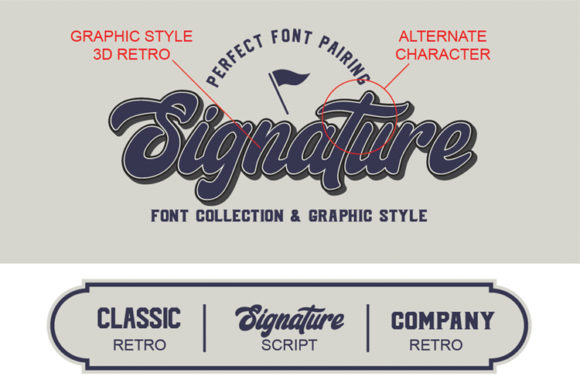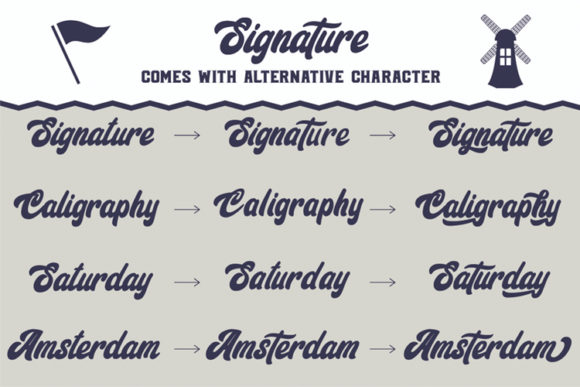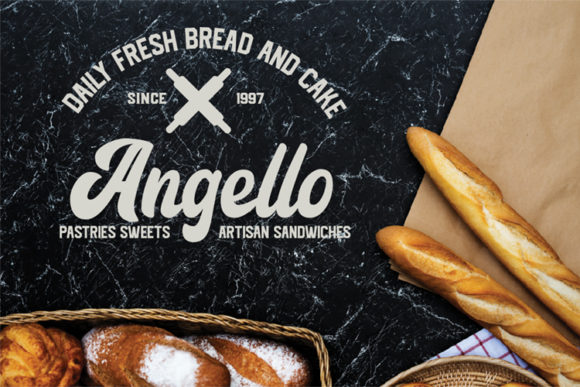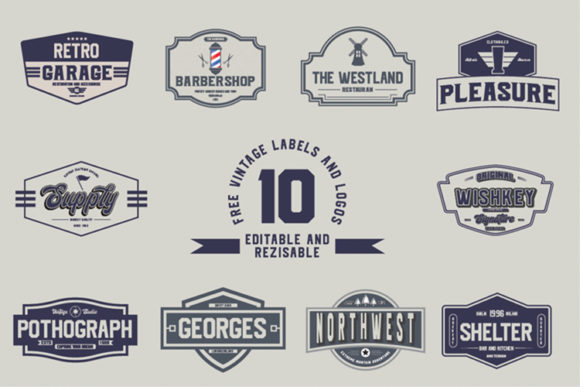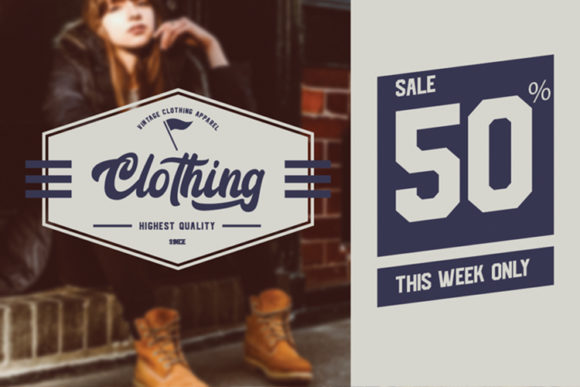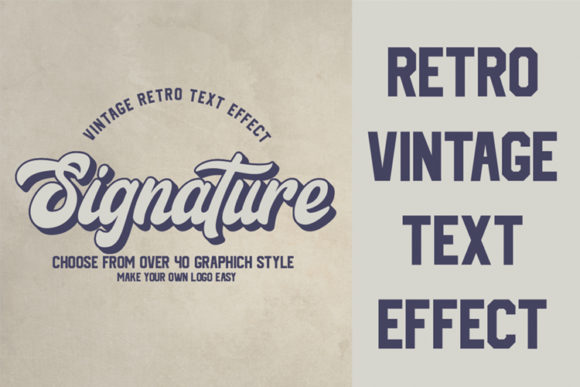
Introduction to Signature Trio Font
Have you ever been working on a creative project, pouring your heart and soul into a design, only to feel like something’s missing? That’s where the Signature Trio Font comes in – a game-changing, high-quality font trio that adds a touch of elegance and sophistication to any design. With its bold and modern style, this font has a vintage feel that’s perfect for creating beautiful, hand-made typography.
As a designer, you know how valuable a great font can be. It’s the difference between a design that’s just okay, and one that truly stands out. That’s why we’re excited to share the Signature Trio Font with you – a free download that’s packed with possibilities. Whether you’re working on a branding project, creating social media posts, or designing wedding invitations, this font is the perfect addition to your design resource.
Key Features of Signature Trio Font
- The Signature Trio Font is a high-quality design resource, ideal for creative projects requiring a professional touch.
- Available for free download, this font includes three unique styles in a single package, making it a convenient design resource.
- Each style features a transparent background, allowing for easy customization and integration into various design elements.
- This font is available in a single size, but its versatility and unique characteristics make it a valuable addition to any design collection.
- The Signature Trio Font is a great resource for designers, artists, and creatives looking for a high-quality, free design element to enhance their projects.
Honest Review: Signature Trio Font
I recently had the chance to work with the Signature Trio Font, and I must say it’s been a game-changer for my creative projects. This font is a fantastic design resource that offers a high quality, professional look.
- ✨ The font is highly versatile and can be used for a wide range of creative projects, from business cards to brochures.
- ✨ The transparent background makes it easy to work with, allowing for seamless integration into any design.
- ⚠️ The font may not be suitable for use in situations where a large font size is required, as it can appear pixelated.
- ⚠️ The font only comes in a few different weights, which may limit its use in certain design applications.
Overall, I’m very impressed with the Signature Trio Font. Its high quality and versatility make it a valuable addition to any designer’s toolkit. With a few minor limitations in mind, I would highly recommend it for any creative project.
Introduction to Signature Trio Font
The Signature Trio Font is a high-quality design resource perfect for creative projects. This versatile font offers a unique and modern look, ideal for various applications. With a transparent background, it’s easy to integrate into any design.
Tips for Getting the Most Out of Signature Trio Font
To get the most out of the Signature Trio Font, use it in conjunction with other design elements, such as graphics and textures. This will help create a cohesive and visually appealing design.
The Signature Trio Font is ideal for various design projects, including:
- Marketing materials and brochures
- Web design and digital marketing
Alternatives to Signature Trio Font